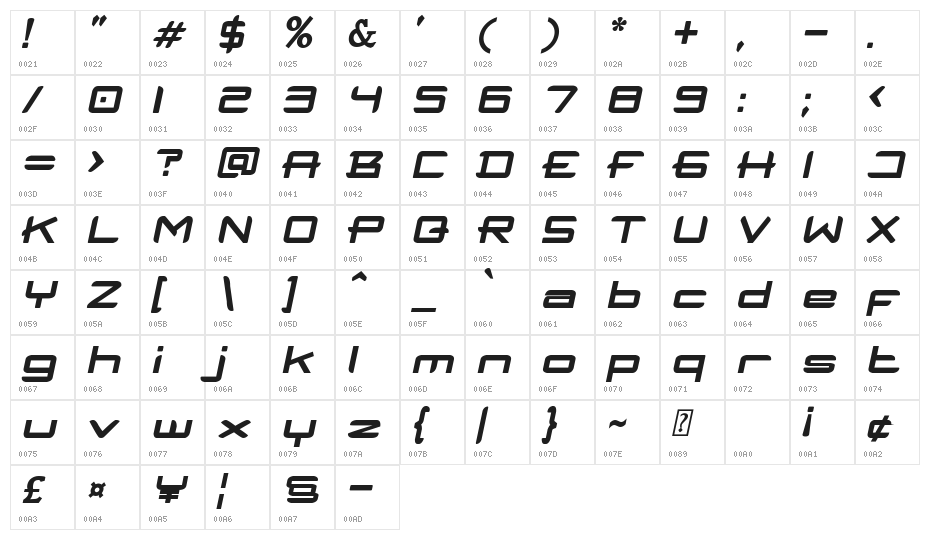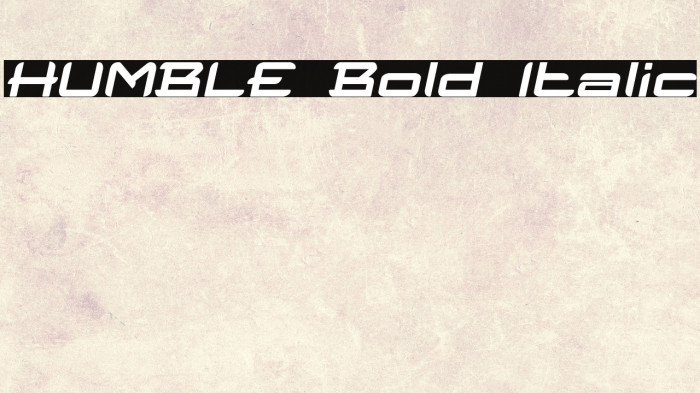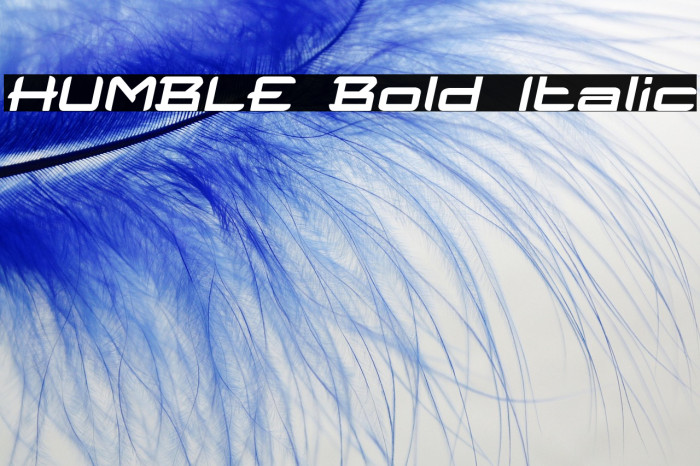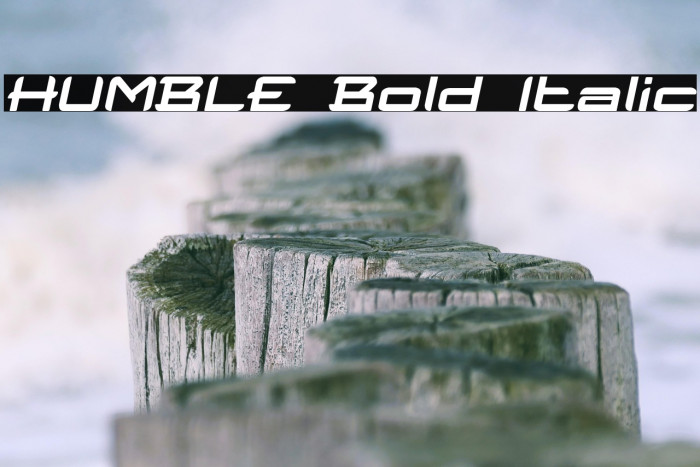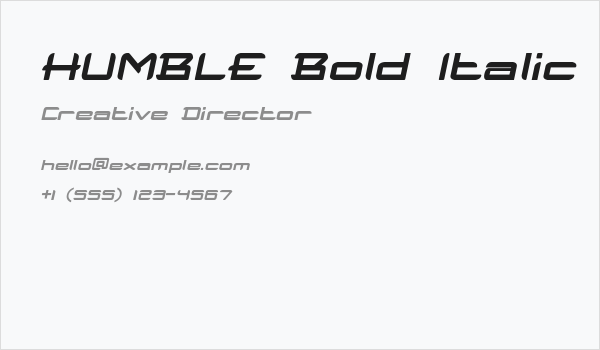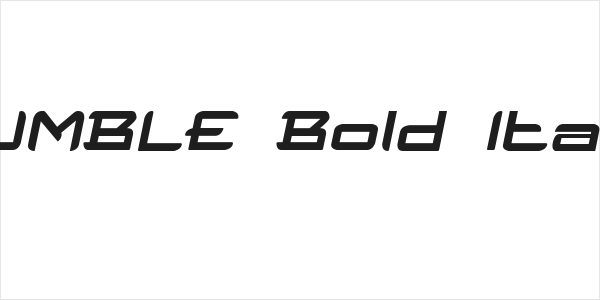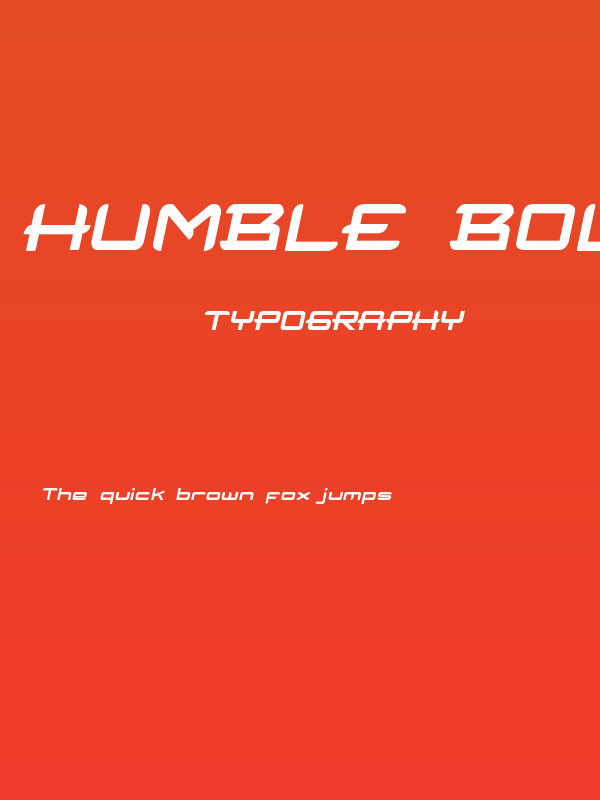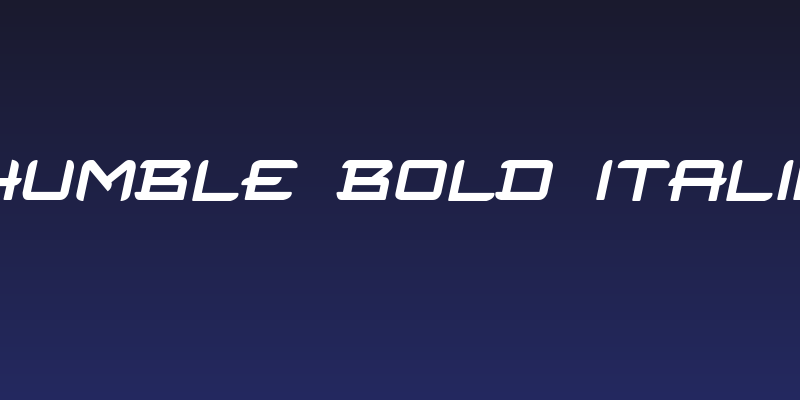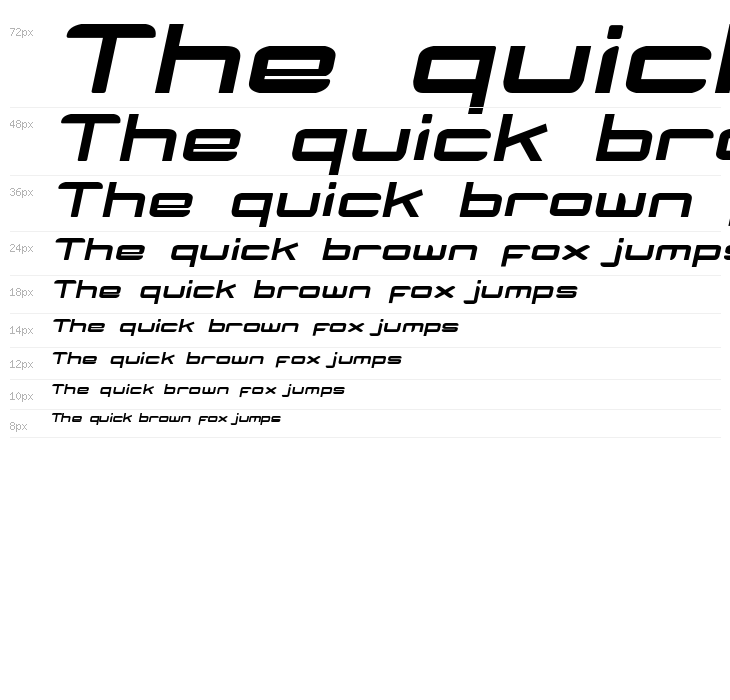
HUMBLE Bold Italic Font
HUMBLE Bold Italic Description
This font features a bold and italicized style with a modern, futuristic aesthetic. The characters are slightly slanted, giving a dynamic and forward-moving appearance. The strokes are consistent in thickness, providing a uniform look across all characters. The design includes a mix of sharp angles and smooth curves, creating a sleek and streamlined effect. The uppercase and lowercase letters maintain a cohesive style, while the numerals and special characters complement the overall design. This font is well-suited for projects that require a contemporary and tech-inspired look.
| Overall Style | Modern, Futuristic |
| Proposed Projects | Ideal for technology branding, sci-fi themed designs, video game interfaces, and modern advertising. |